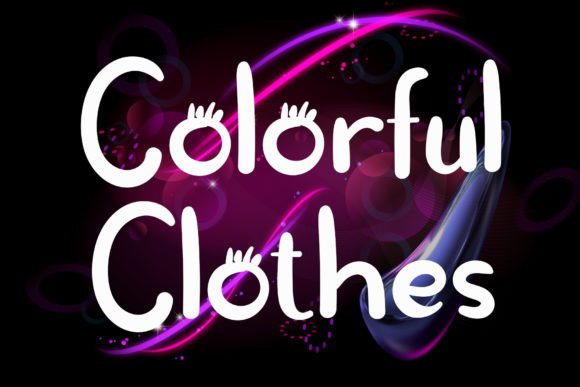
Immerse yourself in the enchanting world of typography with Colorful Clothes, a display font that captivates the eyes and sparks the imagination. This font is not just a collection of letters; it's an artistic masterpiece that transforms ordinary words into captivating expressions. Prepare to be mesmerized by its distinctive shapes, elegant curves, and captivating styles that dance across the page, leaving a trail of visual delight.
With Colorful Clothes, your designs will radiate an aura of creativity and sophistication. Whether crafting Christmas signs that exude festive charm or creating enchanting invitations that transport recipients to a world of wonder, this font is your artistic muse. Its versatile nature transcends genres, making it a perfect match for branding projects, social media posts that demand attention, and eye-catching headlines that command a presence.
Colorful Clothes is more than just a font; it's a gateway to expressing your individuality and leaving an indelible mark on the digital landscape. Embrace its allure, let your creativity soar, and witness the transformation of ordinary text into extraordinary art. Experience the magic of Colorful Clothes and elevate your designs to new heights of visual splendor.